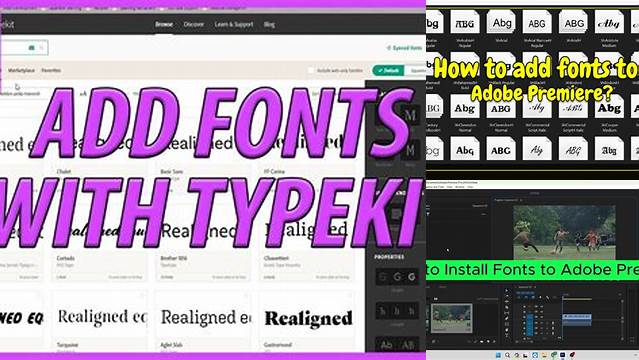
Adobe Premiere Fonts Pack: Why They Matter
First off, why even bother with a special Adobe Premiere fonts pack? Well, the default fonts that come with Premiere Pro are okay, but they can be a little... boring. Think of fonts as the visual voice of your video. They help set the tone, convey information, and create a specific mood. The right font can make your video look sleek, modern, vintage, or even playful. Imagine trying to sell a product with a font that doesn't match the brand's vibe – it just wouldn’t work! A well-chosen font instantly grabs the viewer's attention and enhances the overall viewing experience. Having a diverse Adobe Premiere fonts pack gives you the flexibility to match the font style to the content and the target audience. It’s like having a whole wardrobe of fonts to choose from. You wouldn't wear the same outfit to a formal event as you would to a casual hangout, right? Same goes for fonts. So, having a solid Adobe Premiere fonts pack ensures you can create videos that look and feel just right. Choosing the best font for your projects is important. Consider the video's purpose. Is it a tutorial, a promotional video, or a personal vlog? Also, think about your audience. Are they young, old, tech-savvy, or casual viewers? Choose fonts that are easy to read and match your overall design. Fonts can be broadly categorized – serif fonts (with small strokes at the ends of letters), sans-serif fonts (clean, without strokes), script fonts (like handwriting), and display fonts (designed for headlines). Each type brings a unique feel, so you can combine different fonts to make a more interesting style in your videos. The style is critical to determine how your target audience will perceive your video. A good font can significantly improve your video's appearance, making it more appealing and memorable. It can help establish your brand's identity and improve the overall impact of your message. So, building your Adobe Premiere fonts pack is an investment in the quality of your work.